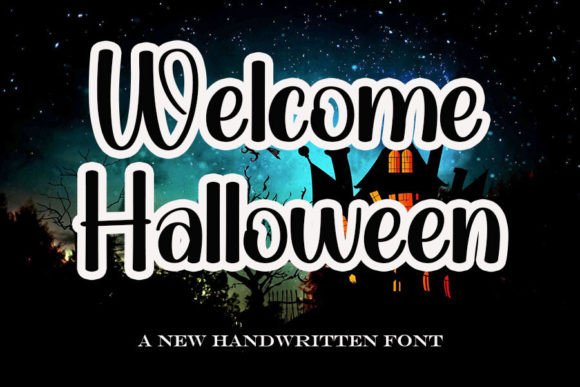
Get Ready To Dive Into the Enchanting World of Welcome Halloween Script!
Welcome Halloween is not just a font; it's a journey into the captivating realm of timeless beauty and modern flair. Inspired by classic calligraphy, this trendy handwritten font is meticulously crafted to add a touch of elegance and class to any design project.
Picture this: your designs adorned with the flowing curves and enchanting charm of Welcome Halloween. With its contemporary atmosphere and impeccable form, this font will effortlessly elevate your work to new heights. Whether you're creating eye-catching logos, enchanting invitations, or captivating social media posts, Welcome Halloween is your perfect companion.
Let your imagination run wild as you explore the endless possibilities of this versatile script font. Its intricate details and delightful flourishes will bring a touch of magic to your design projects. Imagine your words dancing across the page, infused with a timeless elegance that will leave a lasting impression.
But that's not all! Welcome Halloween is incredibly user-friendly, making it a joy to work with. Its smooth flow and impeccable form ensure a seamless writing experience, allowing you to effortlessly create stunning designs that captivate and inspire.